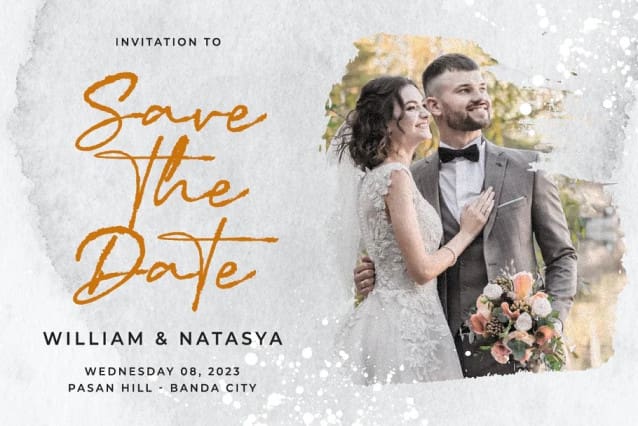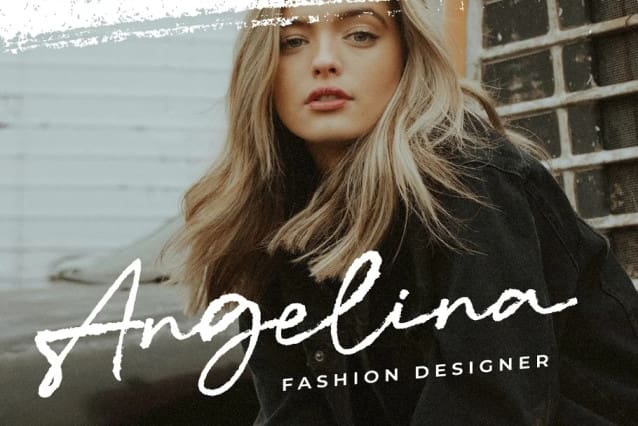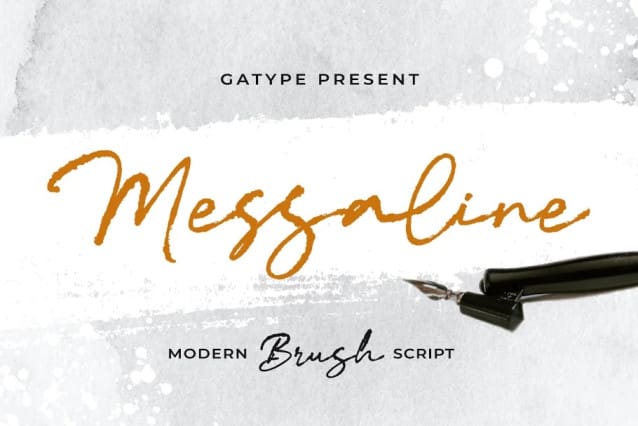
Messaline Brush Font
Messaline Brush Font, is a brush script written in a relaxed and fast way. Letters made with brush pen on paper. It is then carefully scanned and drawn into vector format. That’s why Messaline has organic, authentic and relaxed characteristics.
Suitable for use on title designs such as book titles, stationery designs, quotes, branding, logos, clothing, invitations, greeting cards, t-shirts, packaging designs, posters, and more.
Messaline Brush Font has a dry brush pen texture and Solid is a slightly cleaner version.